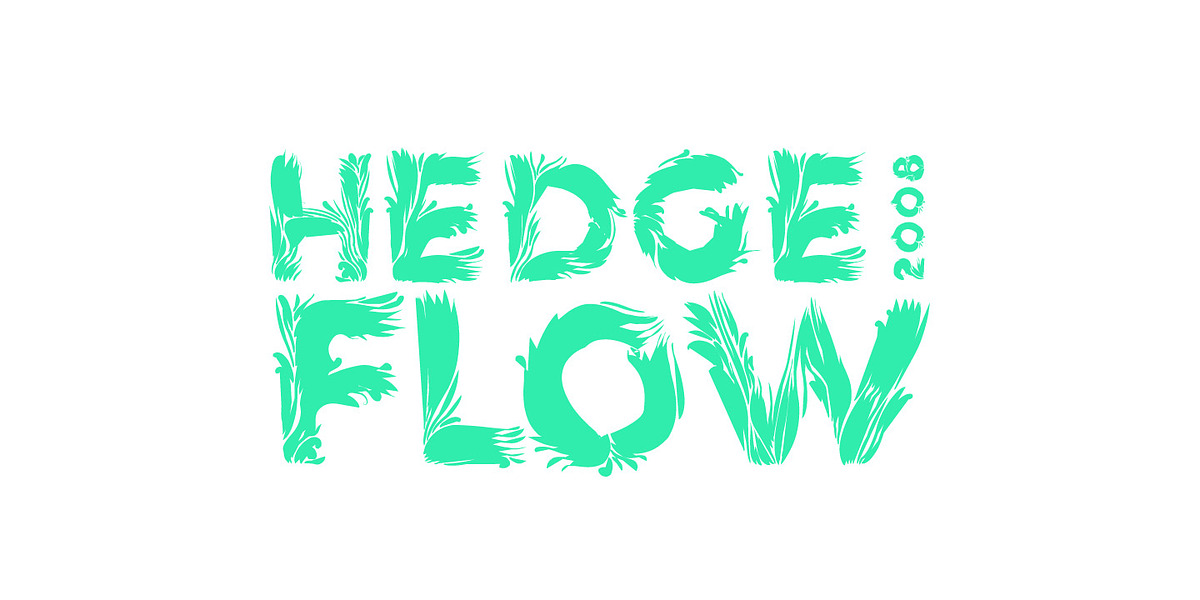
Hedgeflow
Hedgeflow is an all-caps geometric display font with a unique hand-crafted, organic texture. Its intricate design evokes imagery of nature and growth, making it suitable for branding, headlines, and other display text applications related to plants, parks, jungles, or any content aiming for a natural aesthetic.